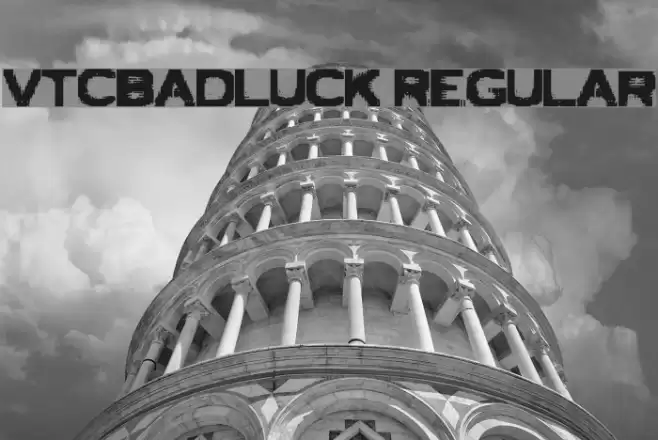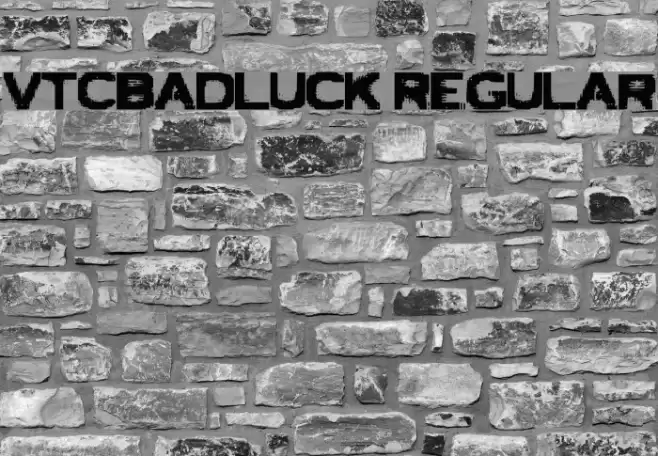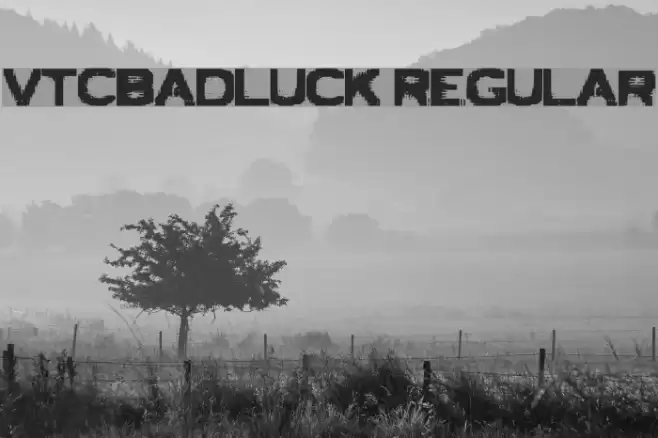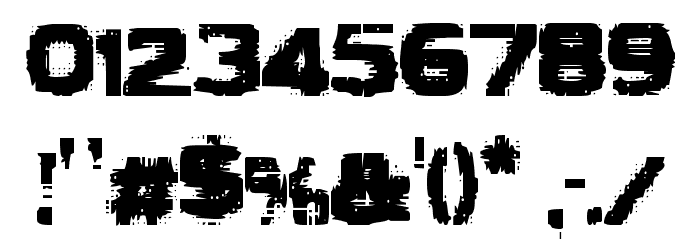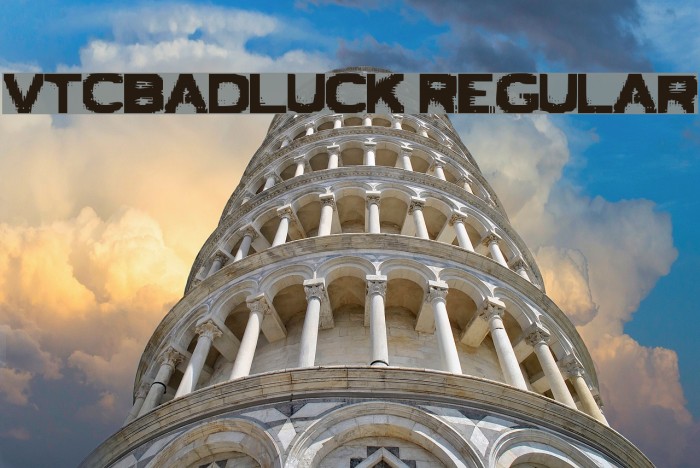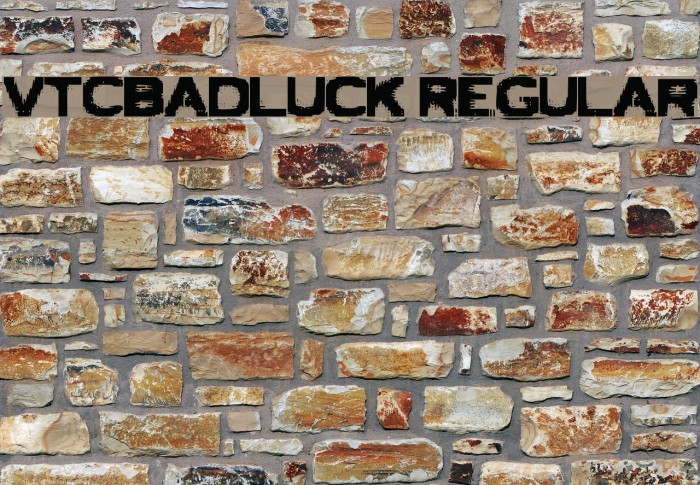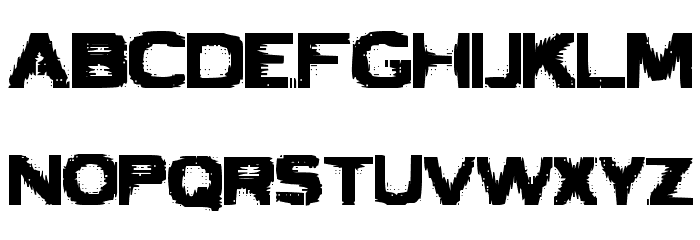
VTCBadLuck Regular Font
VTCBadLuck Regular Description
This font features a bold, distressed style with a grunge aesthetic. The characters are blocky and robust, with a rough texture that gives them a worn, weathered appearance. The uppercase and lowercase letters maintain a consistent width, while the numbers and special characters follow the same distressed theme. This font's unique style makes it stand out, providing a sense of edginess and rawness. The irregularities in the texture add character and depth, making it suitable for projects that require a bold statement.
A bold, distressed font with a grunge aesthetic from Capitals fonts.
- Proposed Projects: Ideal for album covers, posters, streetwear branding, and any project needing a gritty, edgy look.
- Overall Style: Grunge, Edgy, Distressed